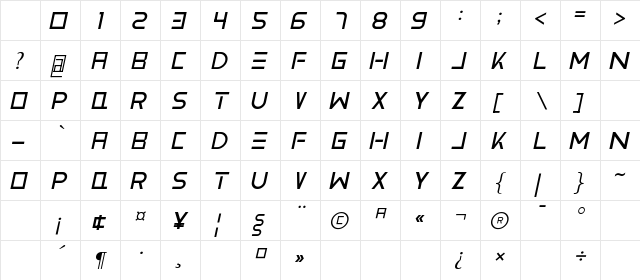
Complete Vemanem Pro Italic glyph index. Displaying only characters natively supported by Vemanem Pro Italic font.
Vemanem Pro is a composed and adaptable typeface that performs quietly and consistently across a wide range of design contexts. The slanted form adds forward momentum and visual energy.
Pro Tip: Use Vemanem Pro for emphasis, pull quotes, and subheadings where its slanted energy can add rhythm to the layout.